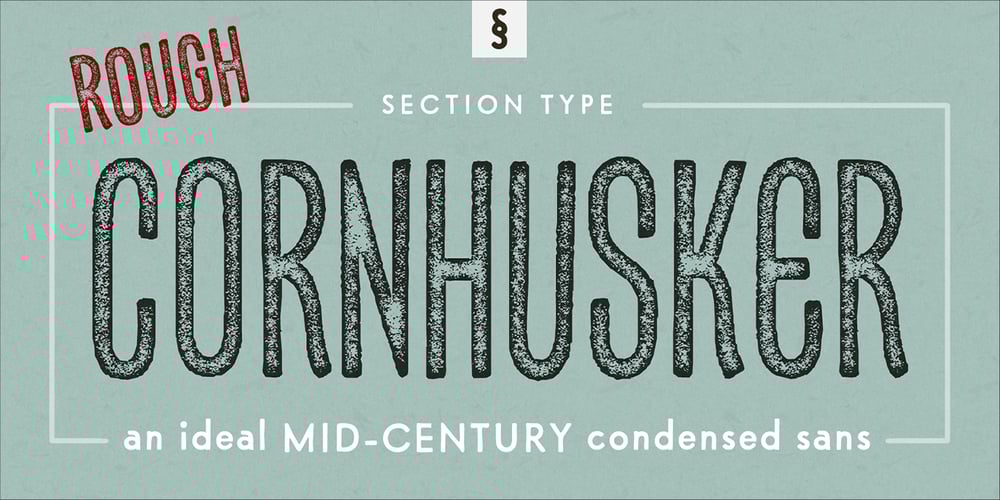
Cornhusker Rough Font Family was designed by published by Section Type. Cornhusker Rough contains 1 styles and family package options. Well lookee here: an authentically distressed “rough” version of our best-selling Cornhusker font! Standing tall as an Illinois cornfield in September, Cornhusker Rough is a faux-printed, condensed sans designed by a champion cornhusker. Inspired by 1940s Midwestern signage, it’s warm & inky characters are perfectly at home in logos, beverage bottles and food packaging, restaurant menus, travel advertisements, websites, stationery, handmade product packaging and so much more. If you’re looking for a hand-crafted typeface with punch (who can fit into tight spaces!) then Cornhusker Rough is the font for you. This inspired revival excels in both retro & modern designs. Cornhusker Rough includes capital letters, small caps, and alternate cuts (with diacritics) of A, E, F, J, X, Y, ᴀ, ᴇ, ғ, ᴊ, x, ʏ, 0, 1, 2, 3, 4, 5, 7 and a sharp German double s in both cap and smallcap. Please note: Cornhusker Rough features a highly detailed, realistic inkplate texture. This font may render slowly in some applications. This font is not affiliated with or endorsed by the University of Nebraska. WHAT’S INCLUDED Cornhusker Regular includes an installable digital Opentype Font file in a single weight. This file contains a basic Latin character set with a full set of uppercase and small caps, multilingual diacritics, numbers, international currency figures, punctuation and pagination symbols. The font also includes alternate cuts for select uppercase and smallcap letters (located in stylistic sets). It is compatible with Adobe CS and CC, Microsoft Word and other type editing apps. SUPPORTED LANGUAGES Afrikaans, Alsatian, Basque, Bislama, Breton, Catalan, Chamorro, Danish, Dutch, English, Faroese, Finnish, Flemish, Franco-Provencal, French, Frisian, Friulian, Galician, German, Greenlandic, Icelandic, Indonesian, Irish, Italian, Ladin, Latin, Luxembourgish, Malay, Manx Gaelic, Northern Sotho, Norwegian (Bokmål), Norwegian (Nynorsk), Occitan, Portuguese, Rhaeto-Romance, Romansh, Sami (Inari), Sami (Lule), Sami (Northern), Sami (Skolt), Sami (Southern), Scottish Gaelic, Spanish, Swahili, Swedish, Tagalog, Walloon and Welsh.